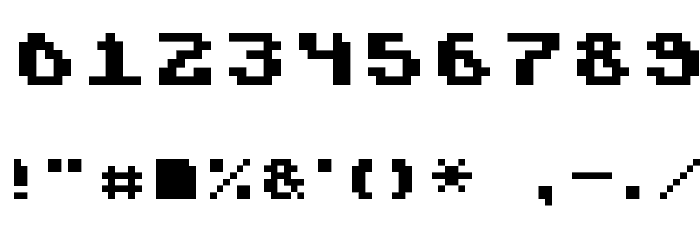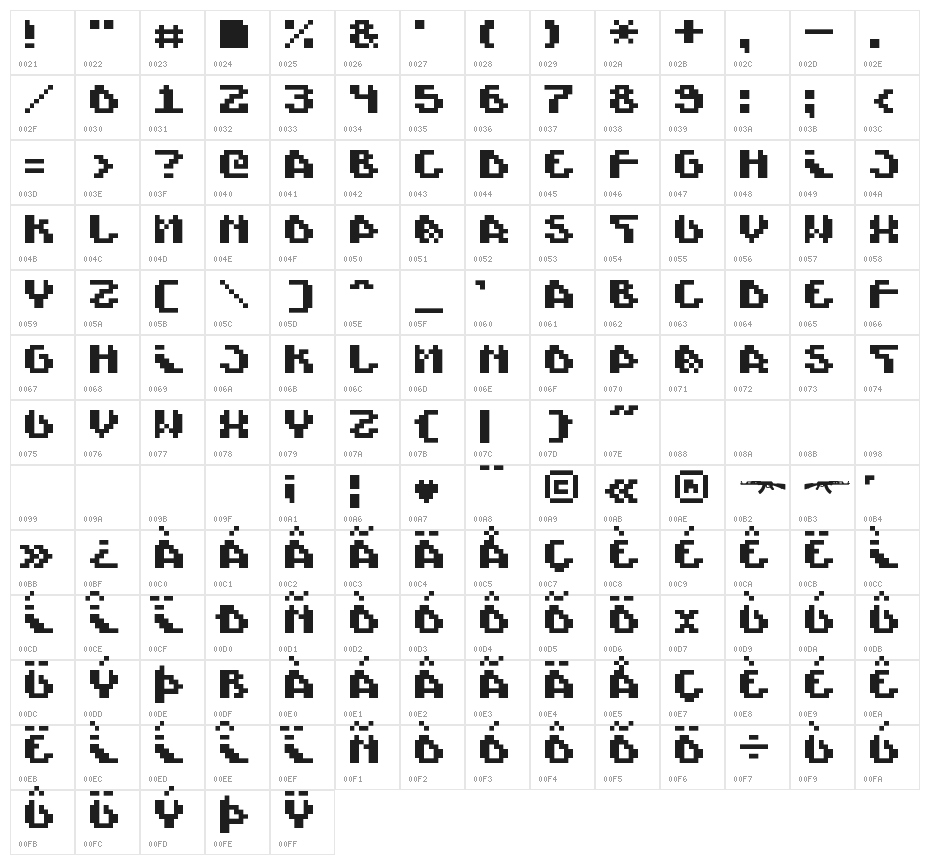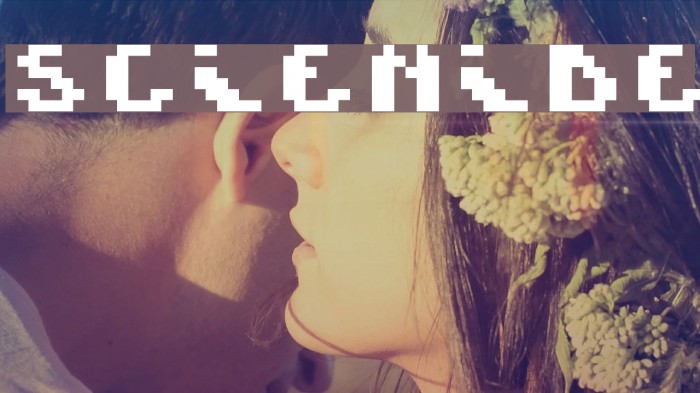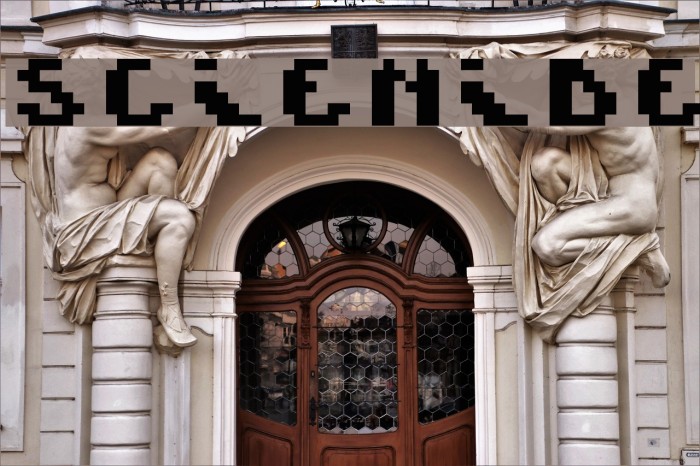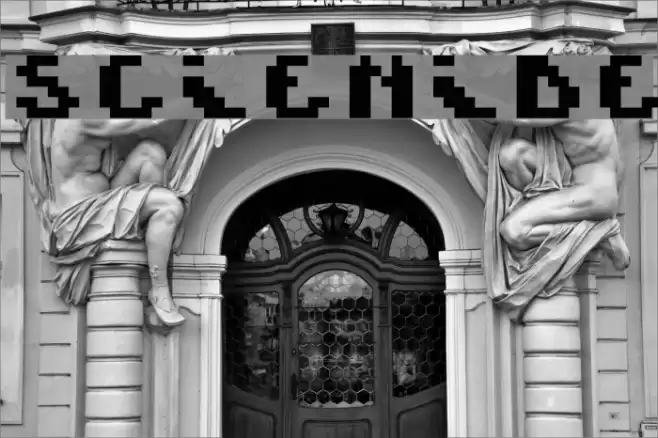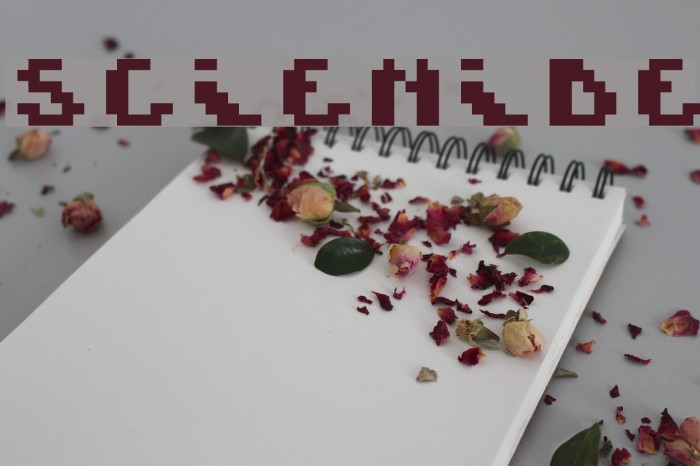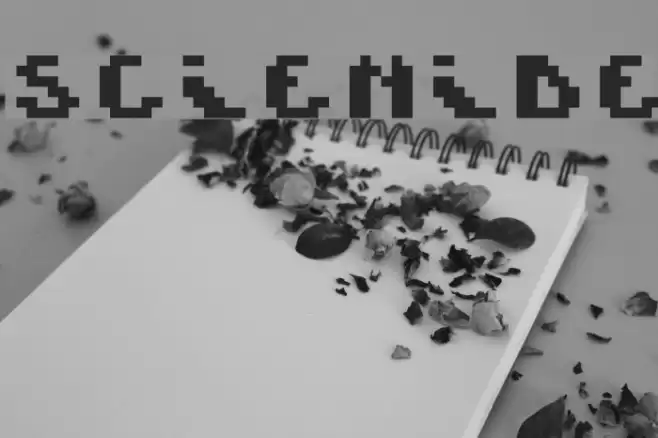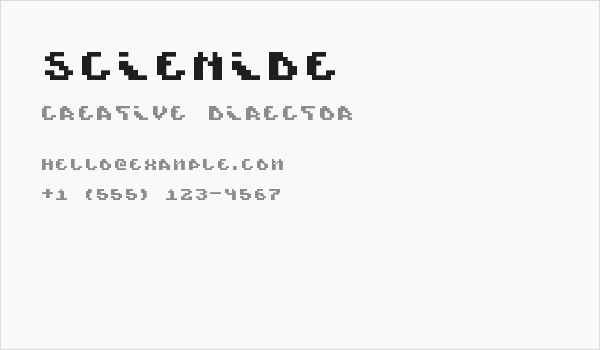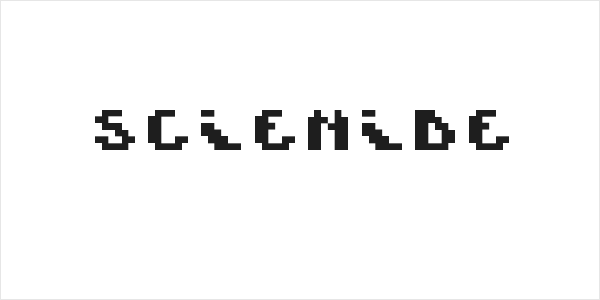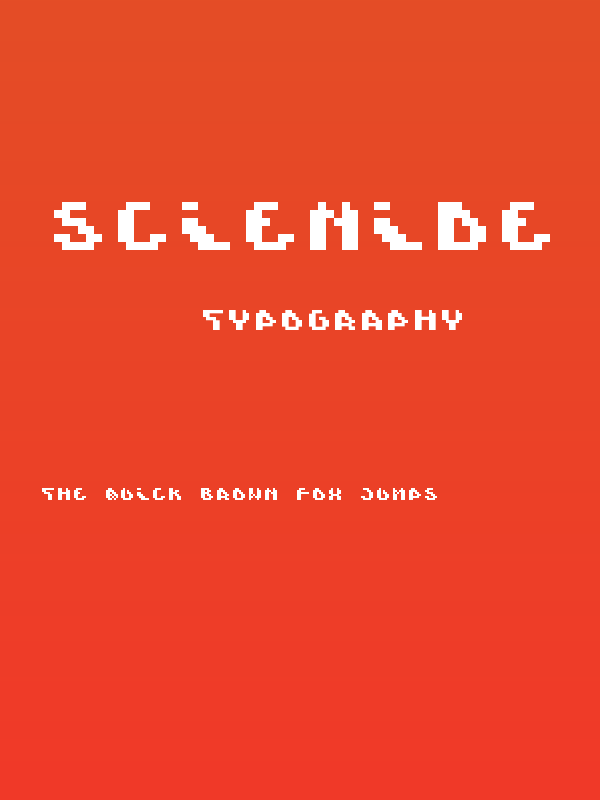
Scienide Font
Scienide Description
This font features a distinct pixelated style reminiscent of early digital displays and retro video games. Each character is constructed with a blocky, grid-like appearance, giving it a unique, nostalgic charm. The uppercase and lowercase letters maintain a consistent height, contributing to a uniform look. The numerals and special characters follow the same pixelated design, ensuring cohesion across all elements. This font's bold and geometric nature makes it stand out, ideal for projects that aim to capture a vintage or tech-inspired aesthetic.
| Use Case | Logos, Headlines, Digital Art |
| Proposed Projects | Ideal for video game design, retro-themed posters, digital art, and tech-related branding. |